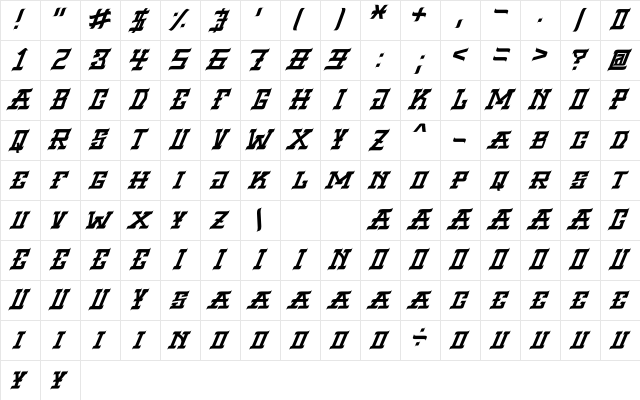
Complete VIRGIL BLACK Italic glyph index. Displaying only characters natively supported by VIRGIL BLACK Italic font.
VIRGIL BLACK is a composed and adaptable typeface that performs quietly and consistently across a wide range of design contexts. The slanted form adds forward momentum and visual energy.
Pro Tip: Use VIRGIL BLACK for emphasis, pull quotes, and subheadings where its slanted energy can add rhythm to the layout.